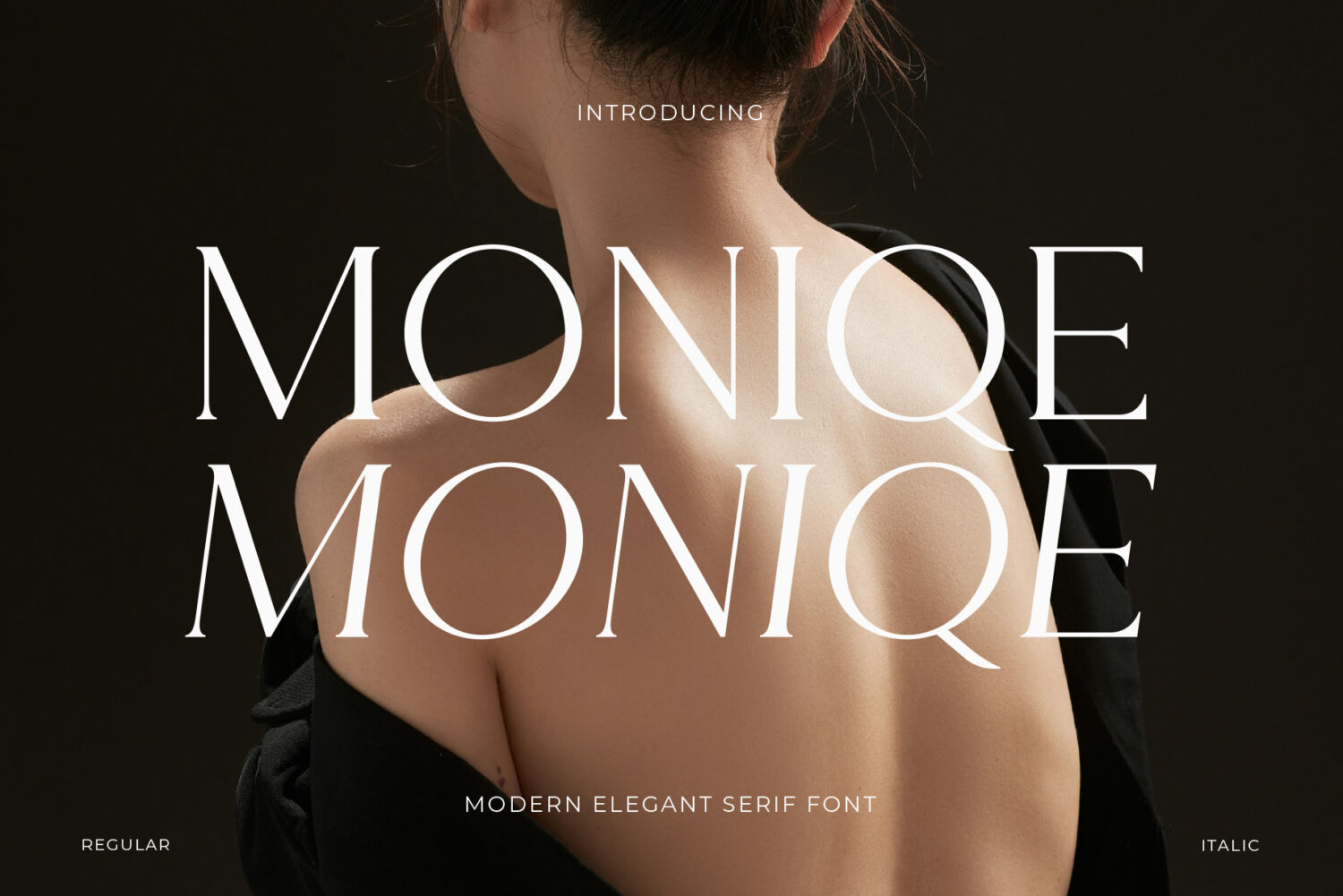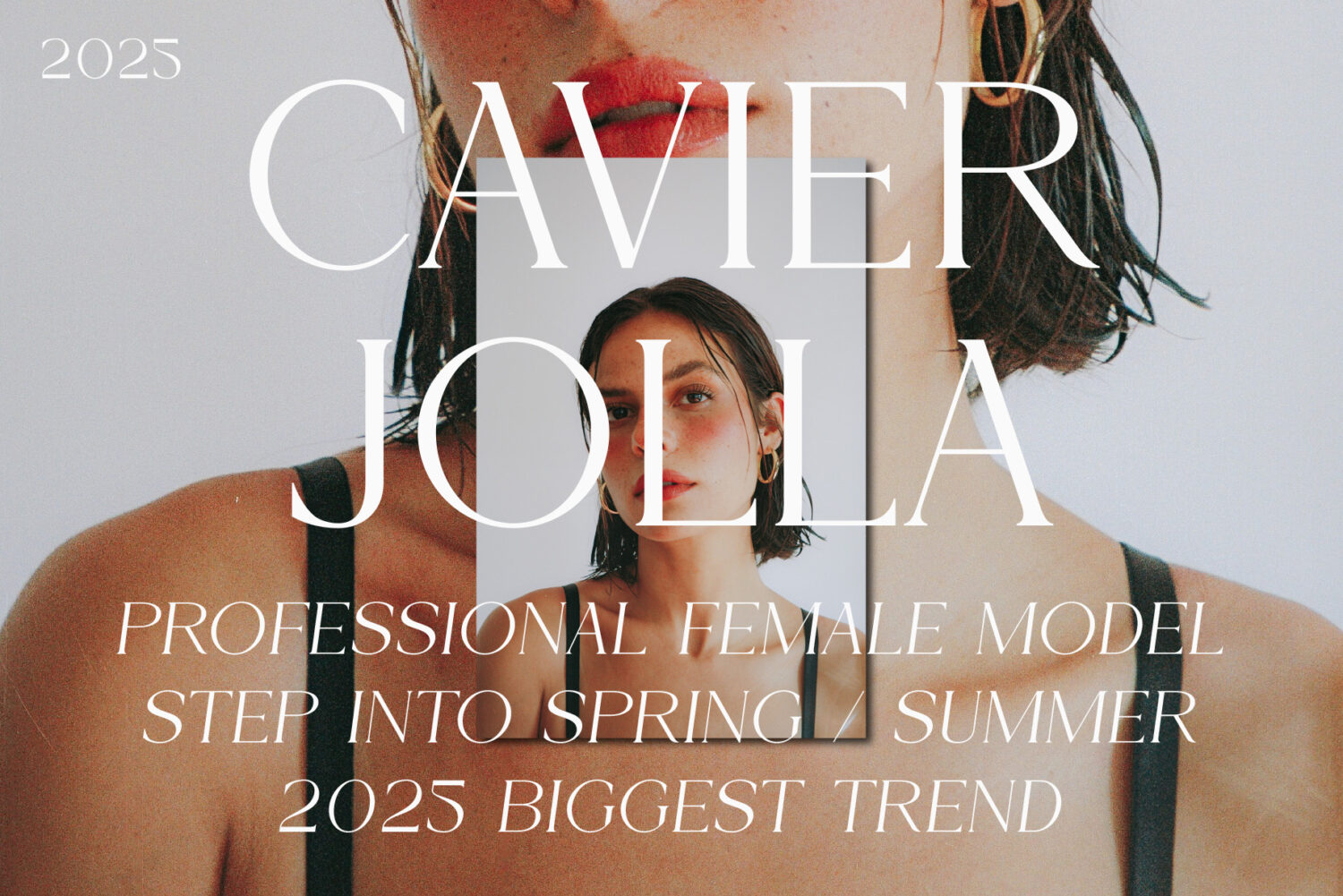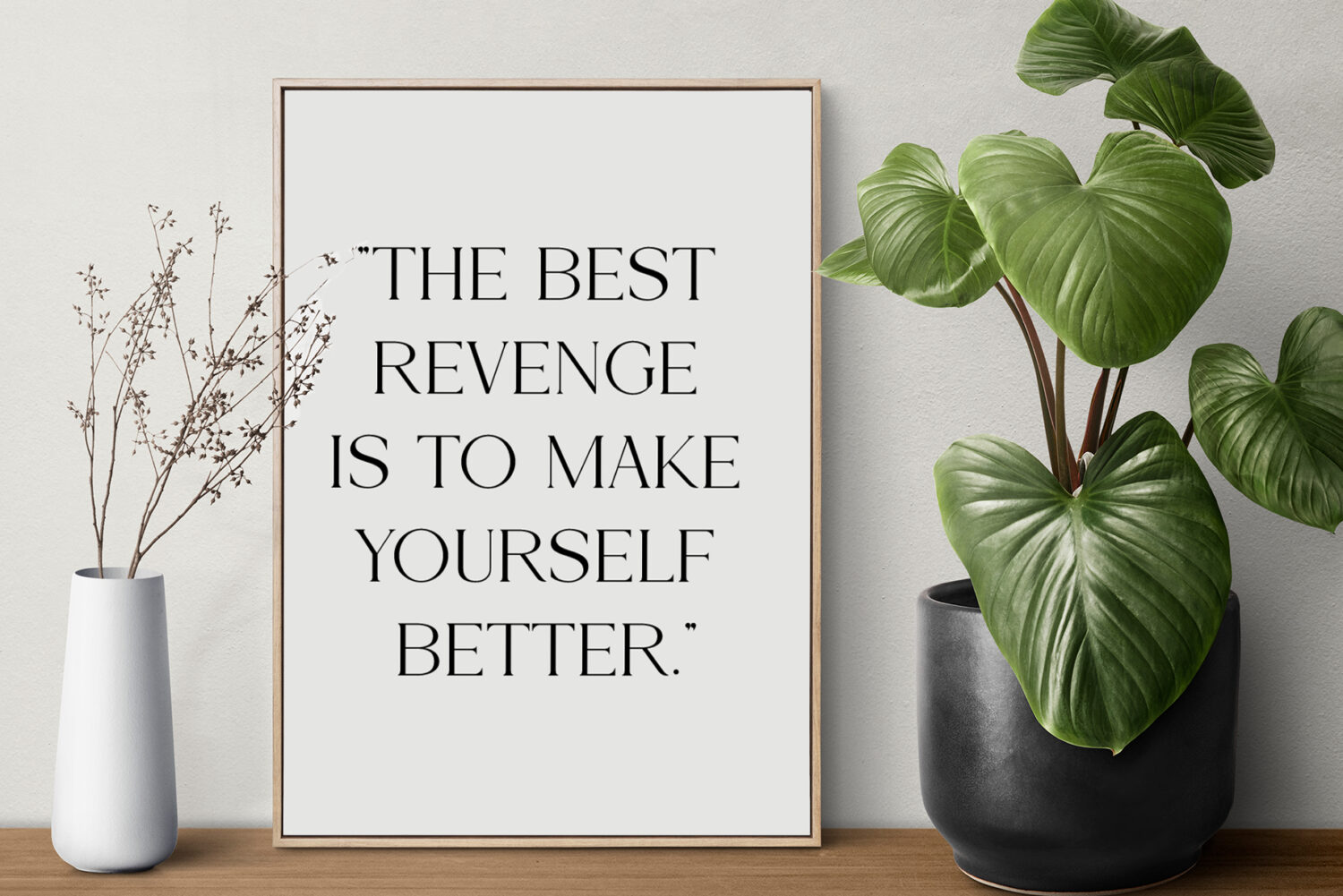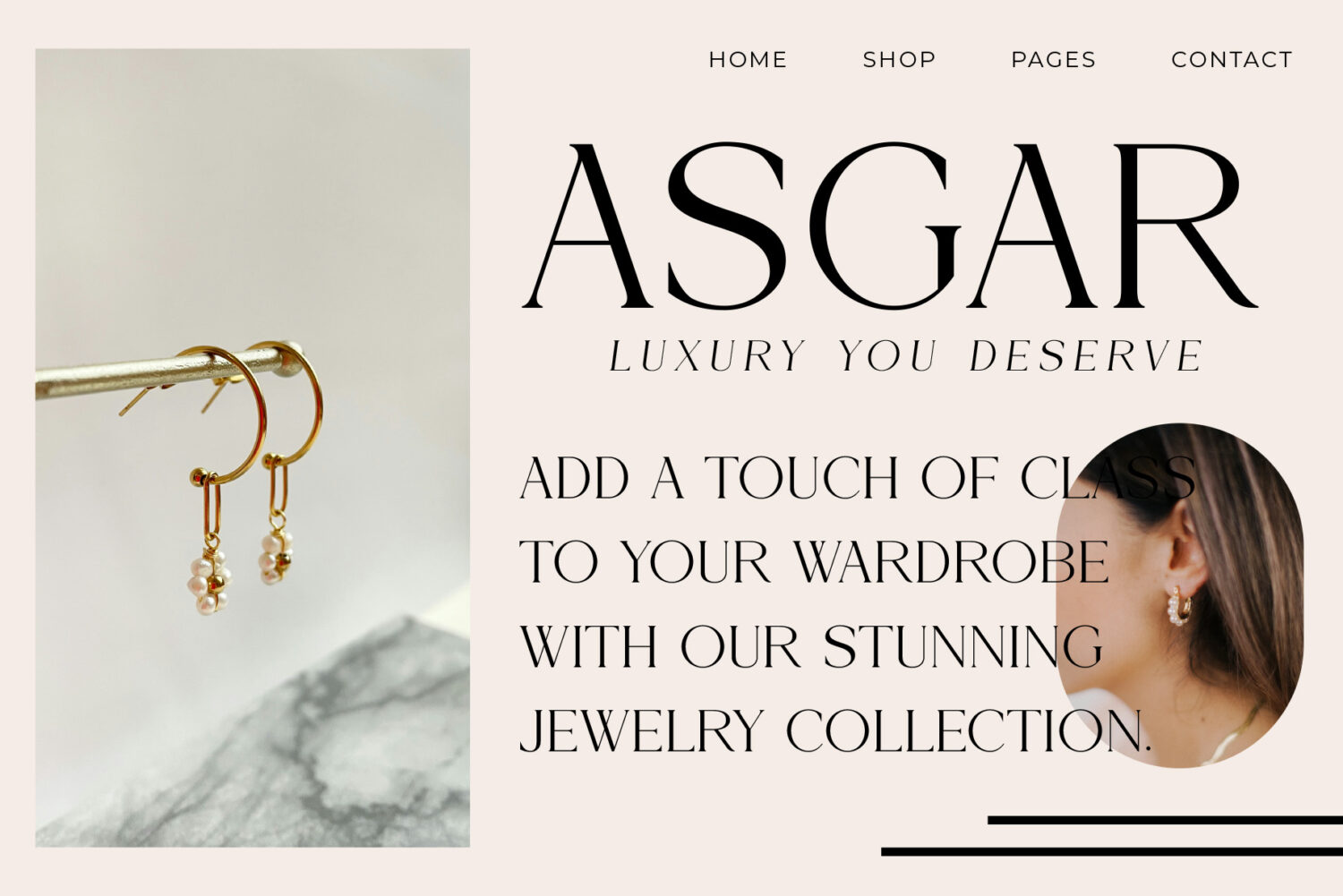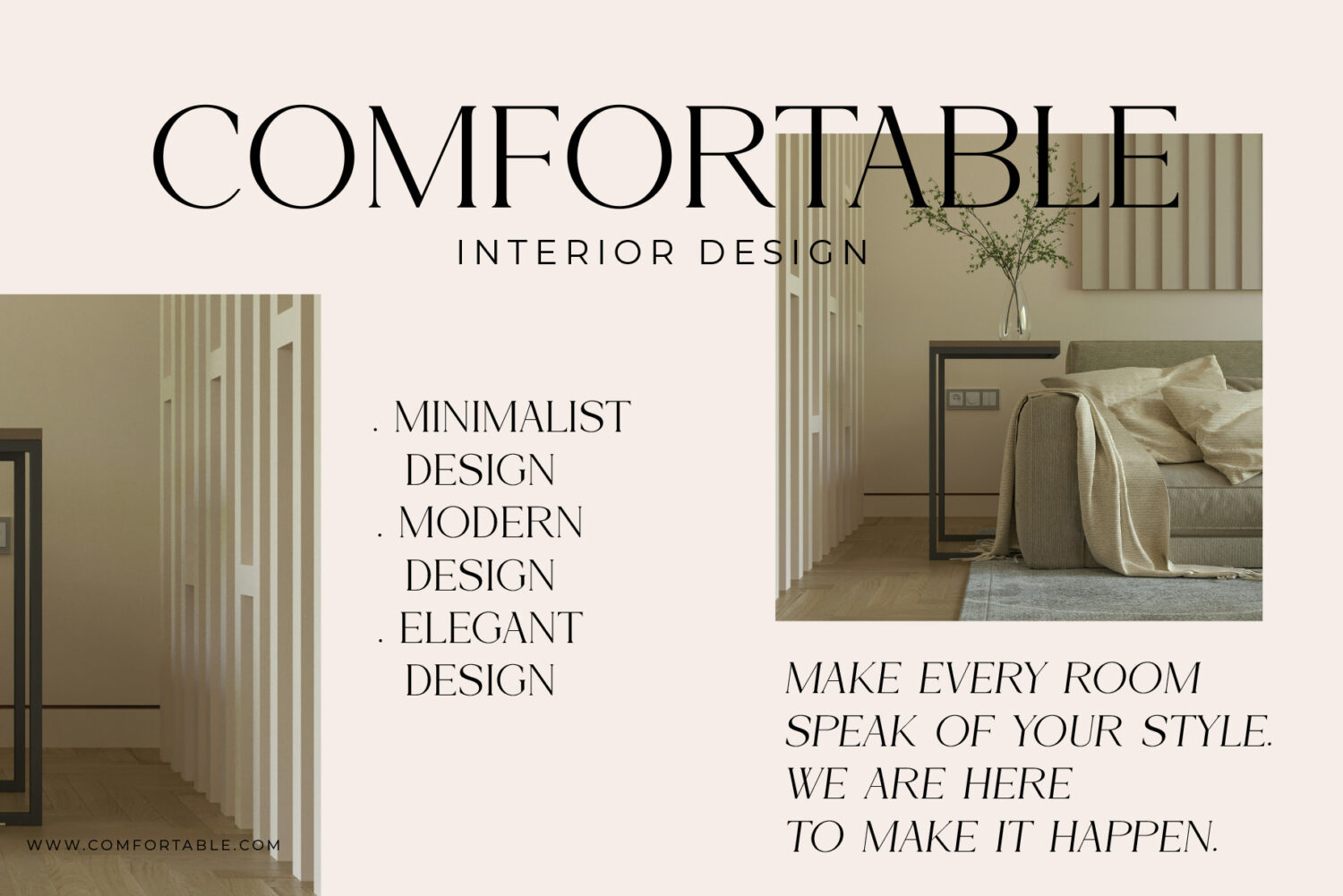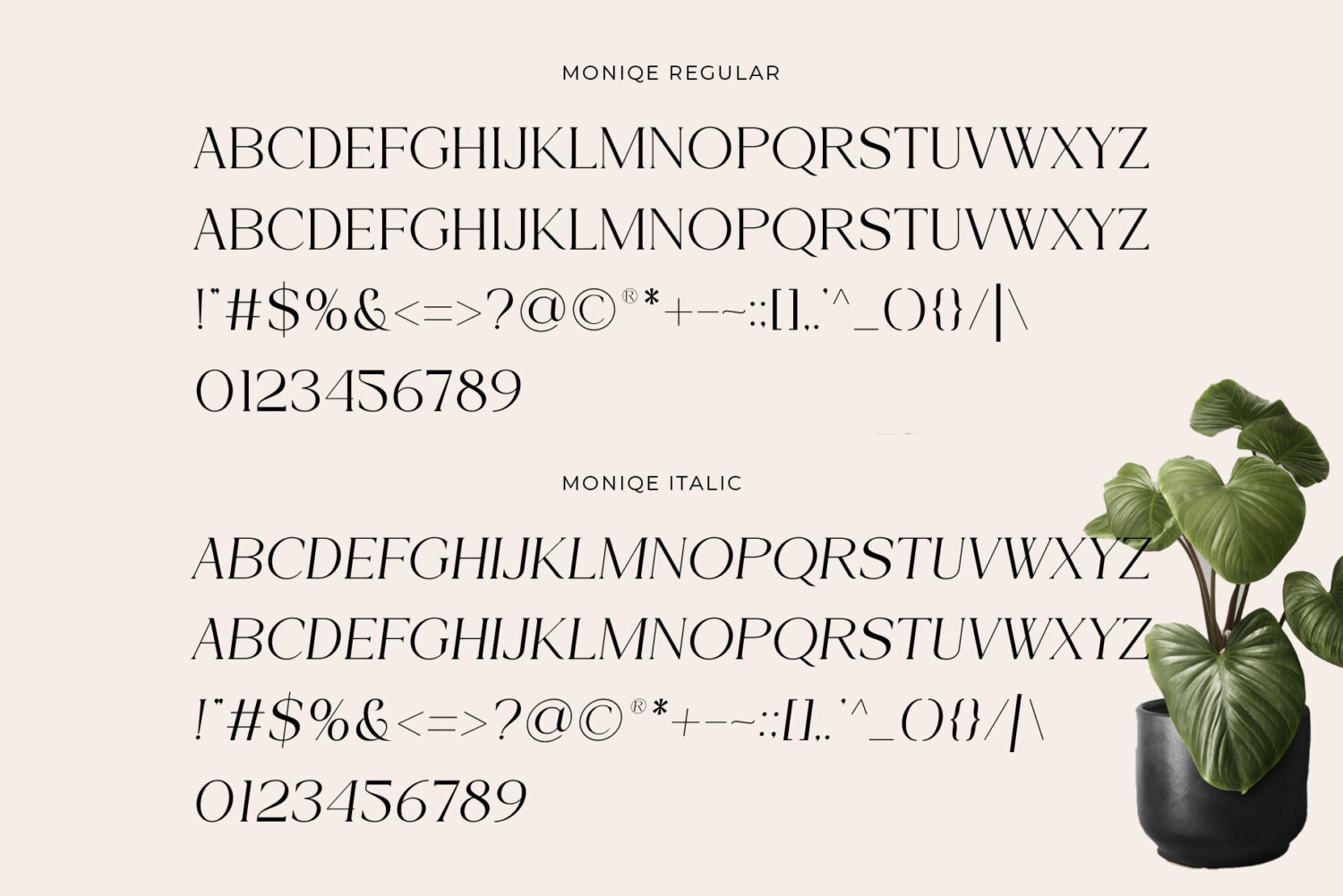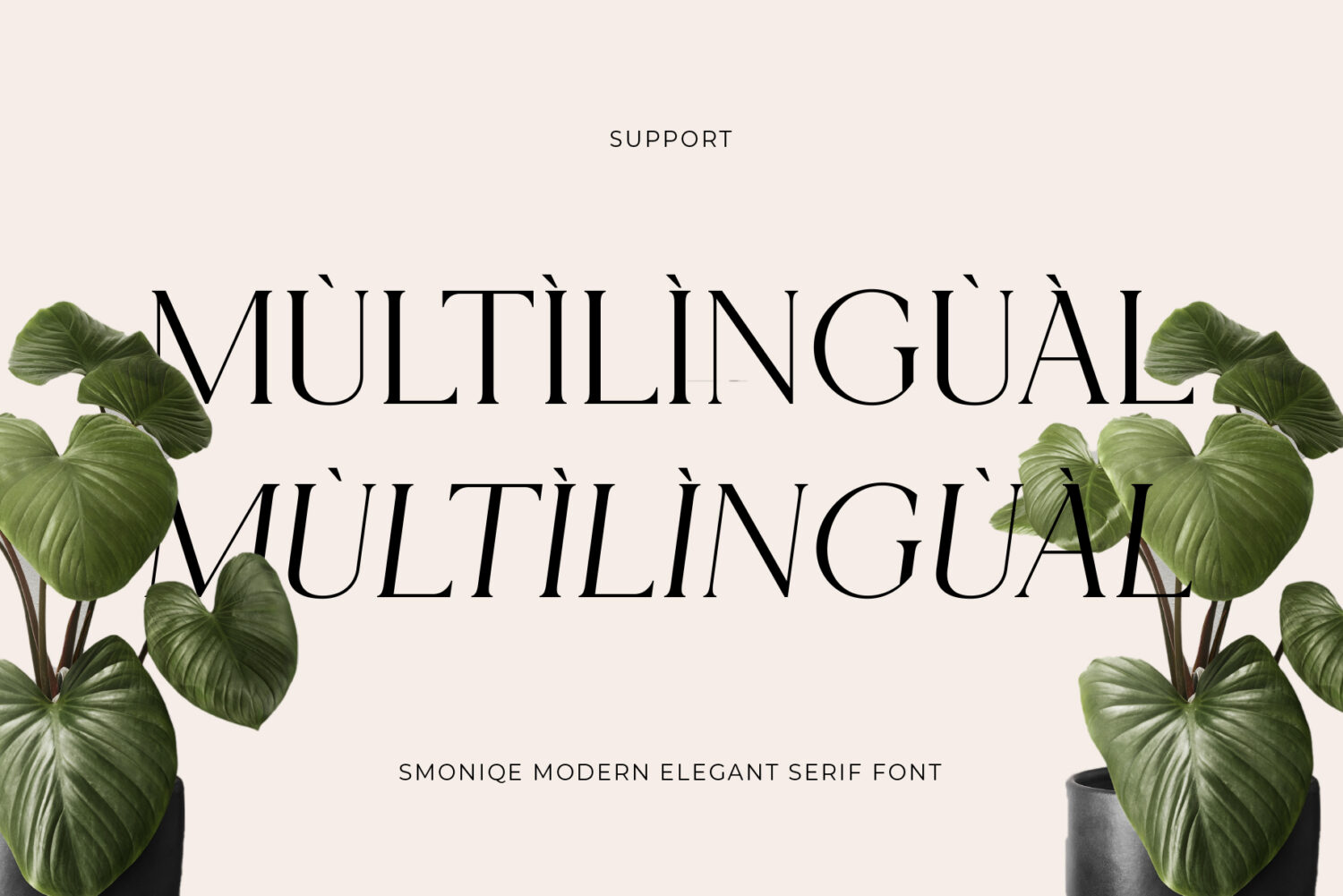
Introducing **Moniqe**, an elegant, beautiful, and modern serif regular and italic style. With its modern and minimalist look, Moniqe brings a luxurious, classy, and clean style to your projects such as websites, modern logos, brand identities, social media quotes, wedding stationery, magazines, and more!
Moniqe features capital letters A to Z available in regular and italic styles making Moniqe a beautiful font that can be customized for any project and work you want.
Moniqe is perfect for: logos, branding, wedding invitations, business cards, greeting cards, posters, magazines, social media, agenda prints, and websites.